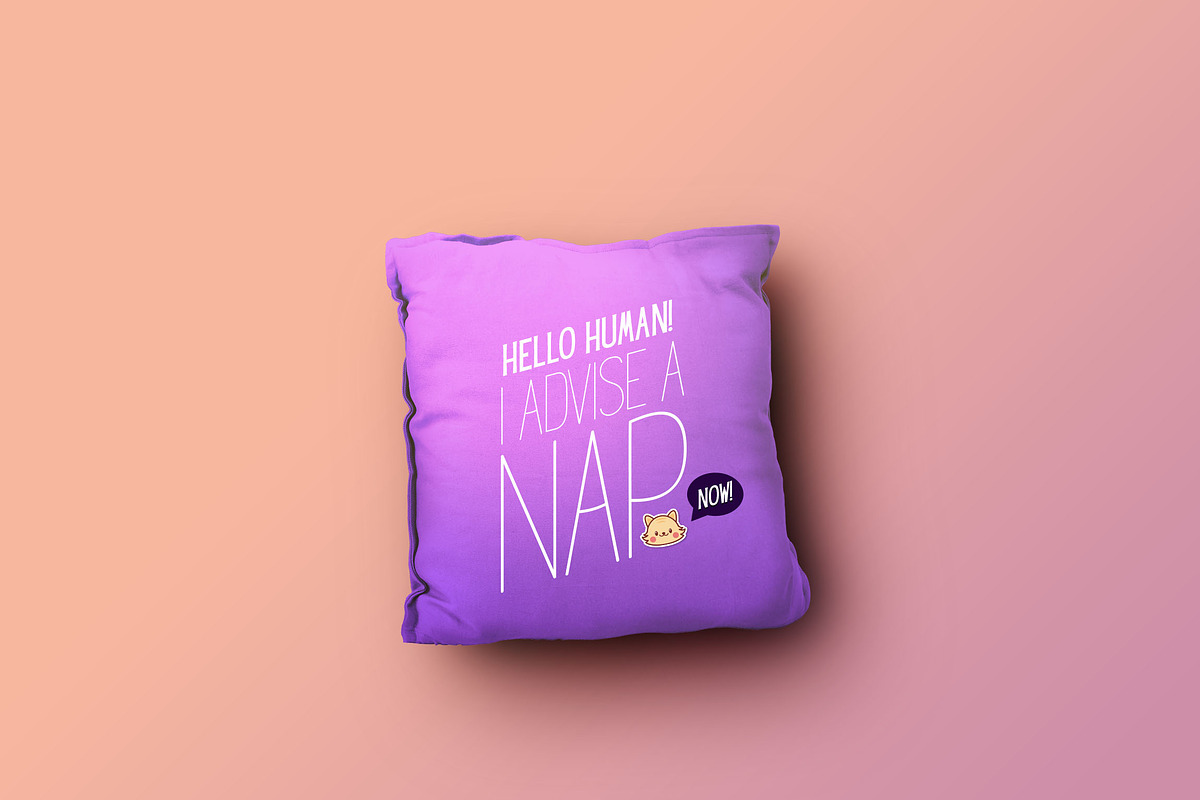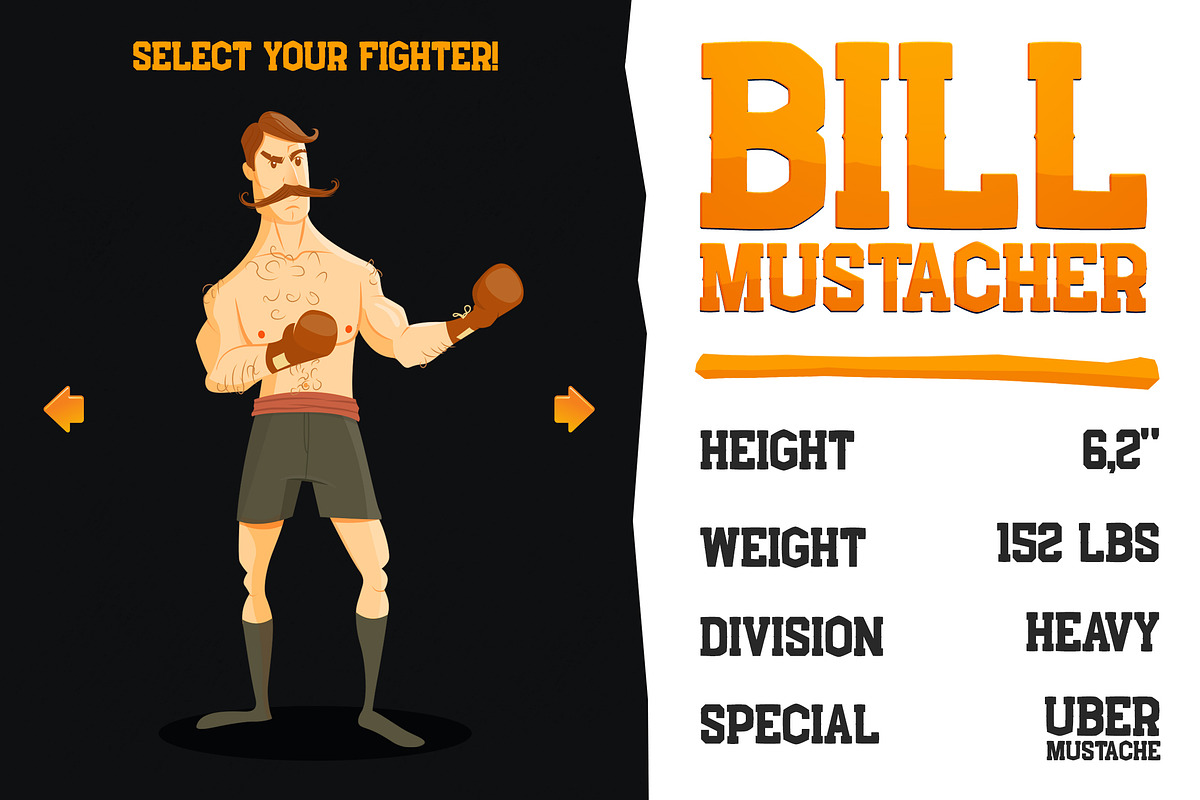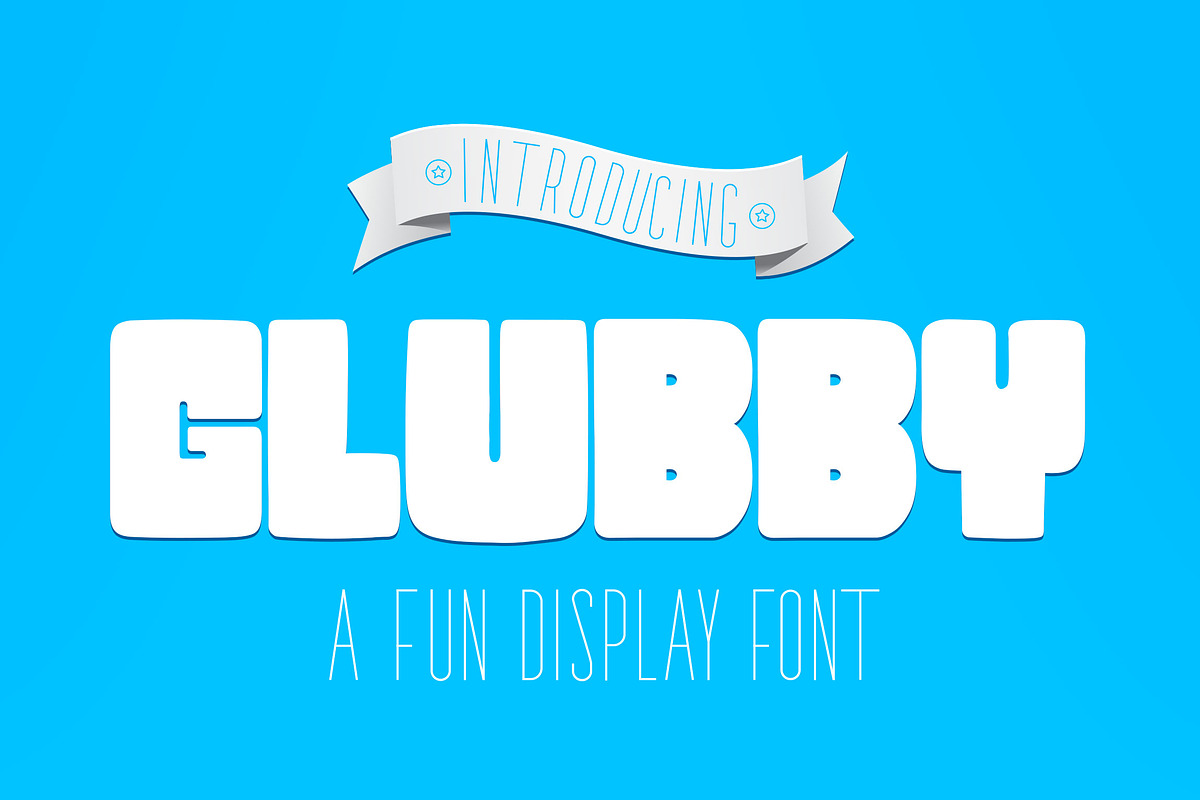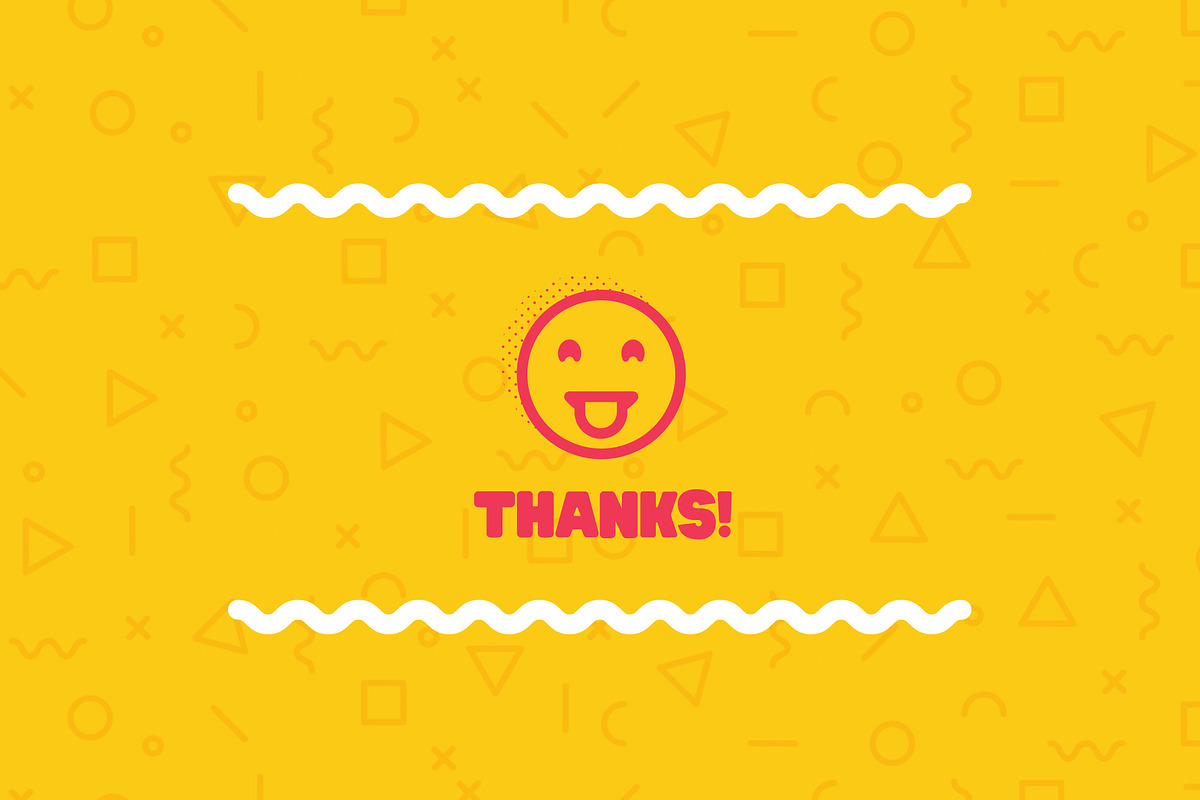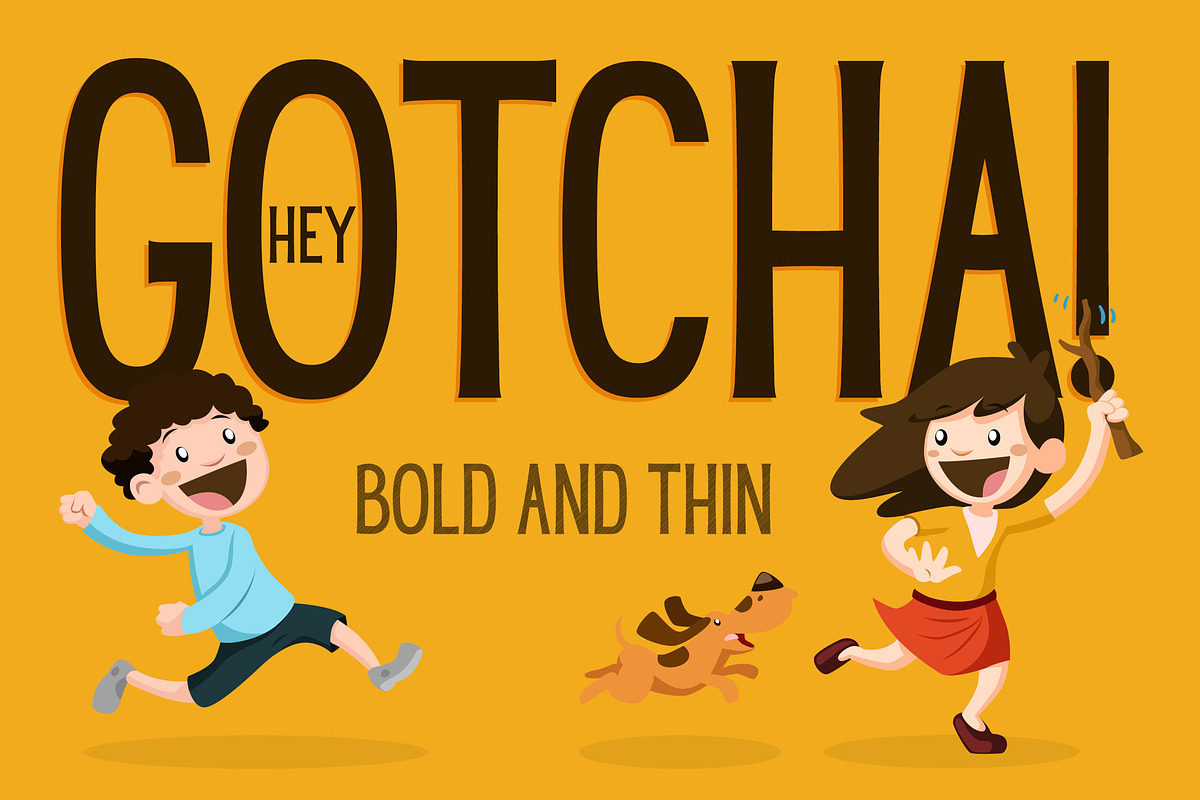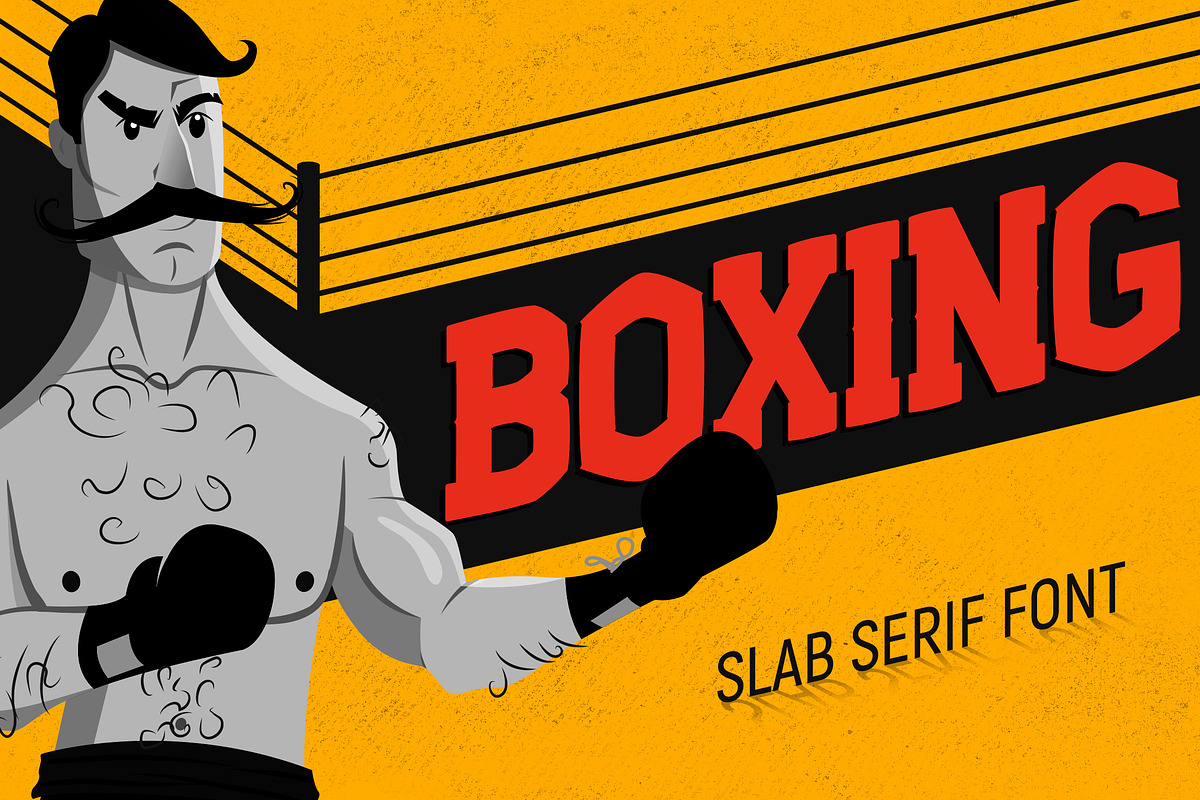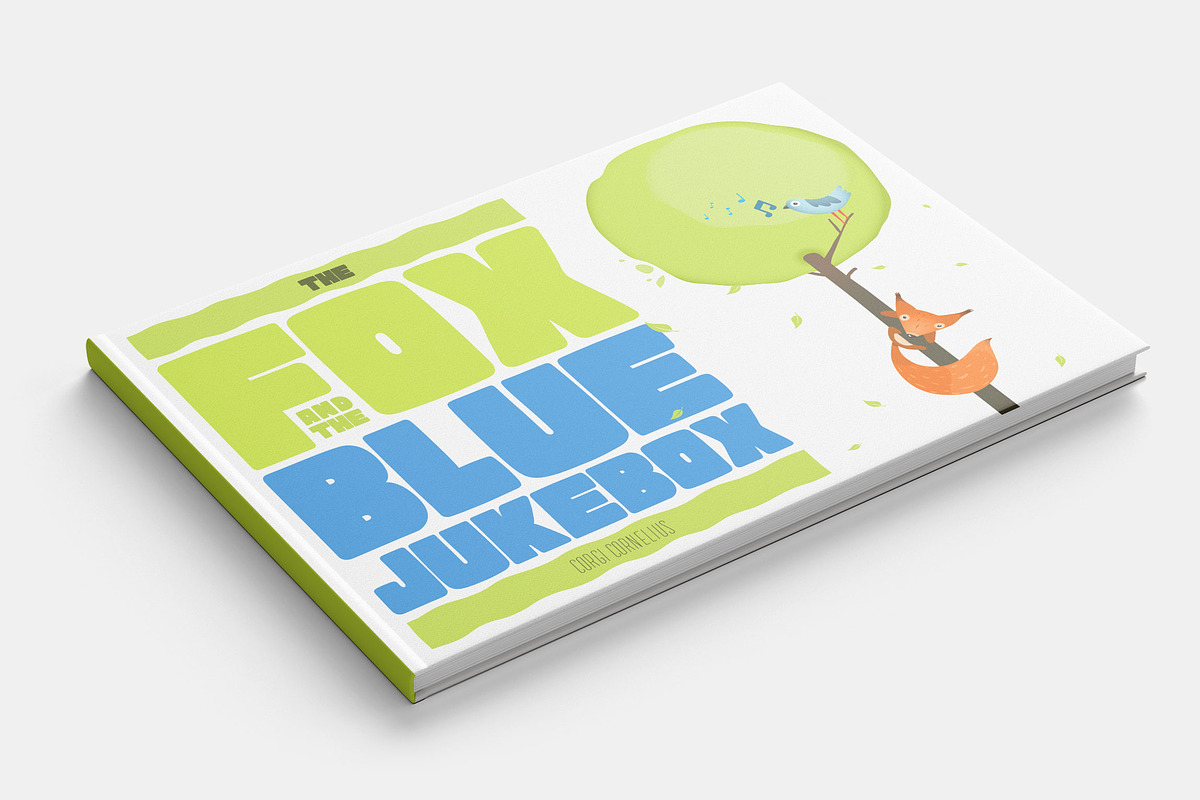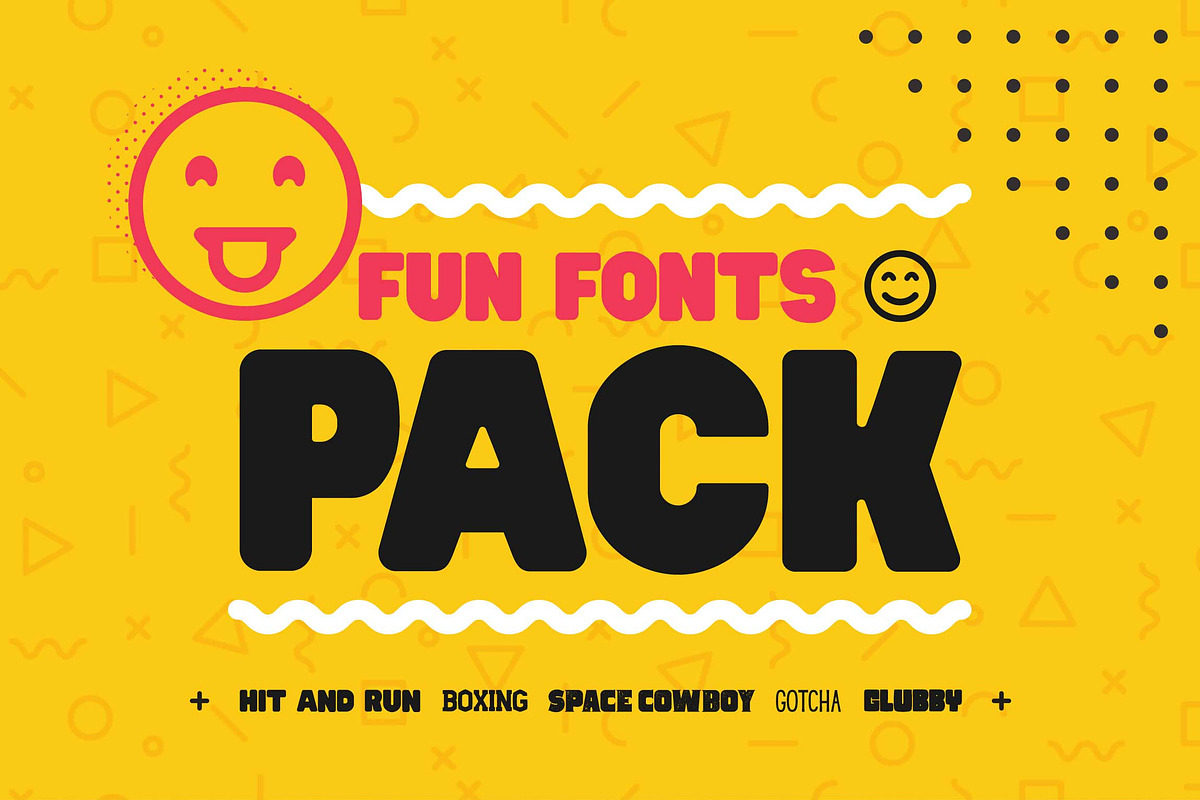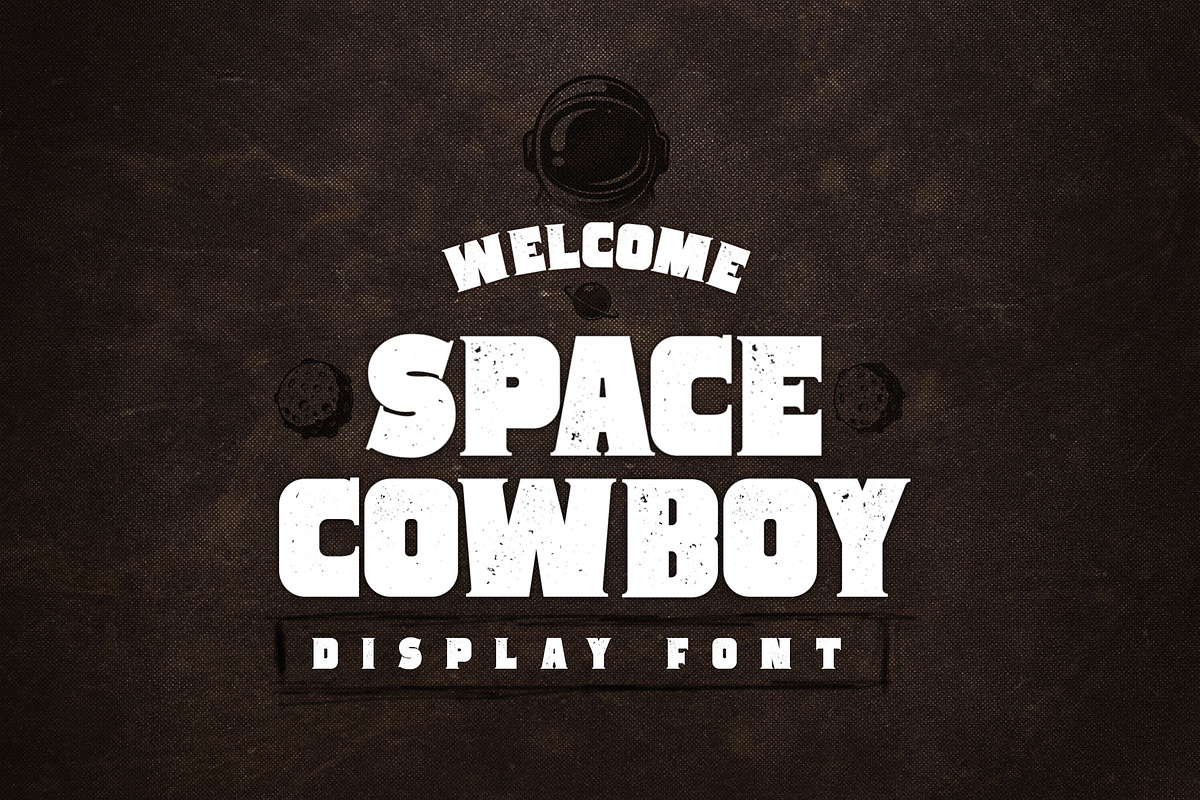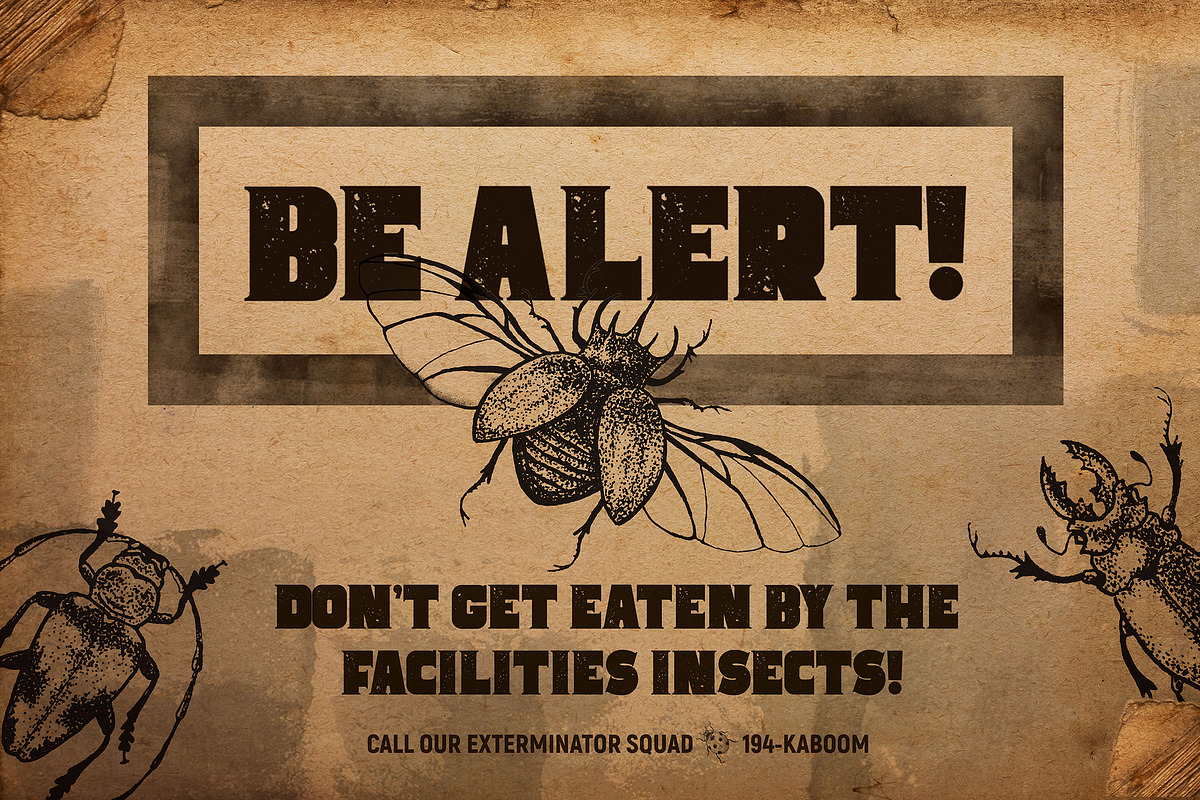
Fun Fonts Pack! - Bundle!
This is the **Fun fonts Pack!" with 5 typefaces each one perfect for your fun projects! From book covers to game UI design, there is something for every fun project of yours!
Get to know each font:
Hey Gotcha! - 3 OTF file - Bold, thin and stripe shadow.
Space Cowboy - 2 OTF files - Clear and distressed.
All Caps Font